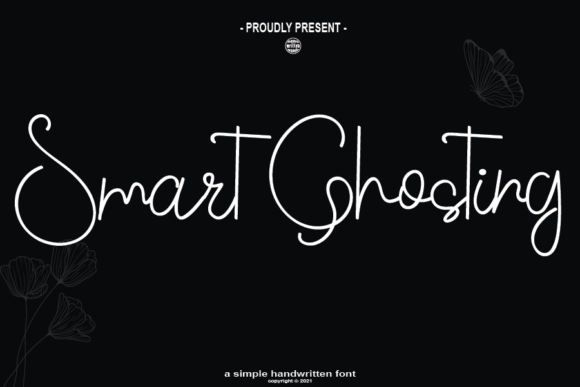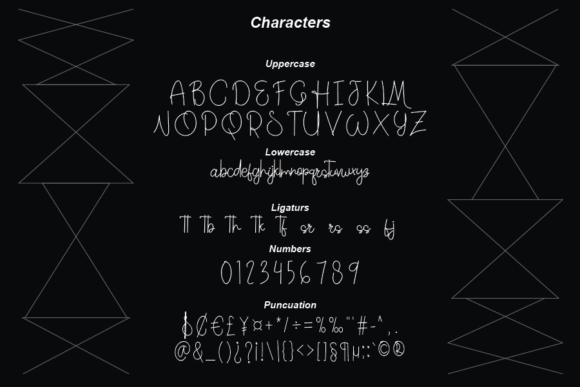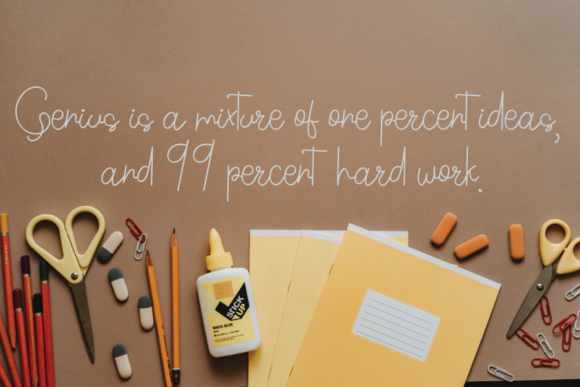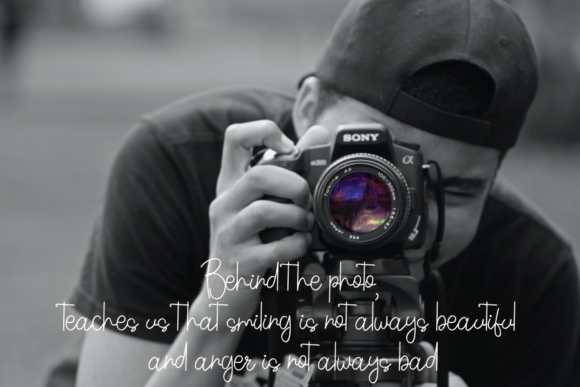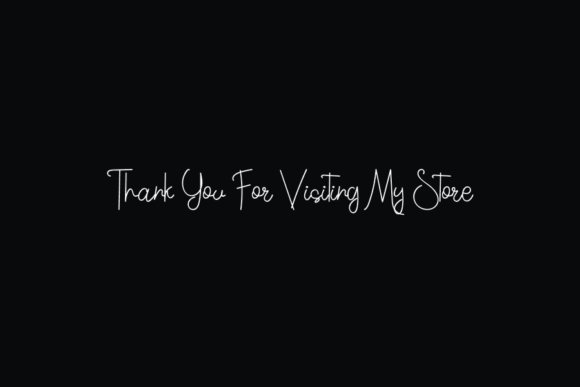
Smart Ghosting Font
About Smart Ghosting Font
Smart Ghosting is a thin and elegant handwritten font that adds a touch of sophistication and delicacy to your creative ideas. With its sleek and refined style, this font helps your designs stand out and make a lasting impression.
The thinness of Smart Ghosting creates a sense of elegance and subtlety in your typographic compositions. Its delicate letterforms and clean lines contribute to a refined and sophisticated aesthetic. Whether you’re working on branding, invitations, editorial designs, or any other project, Smart Ghosting font enhances the overall visual appeal with its thin and elegant demeanor.
Adding Smart Ghosting font to your creative ideas allows them to take on a new level of sophistication and allure. Its elegant and handwritten style brings a touch of class and refinement, making your designs visually captivating and memorable.
The sleekness of Smart Ghosting font ensures that it stands out while maintaining a sense of balance and harmony in your designs. Its thin and delicate appearance creates a subtle and understated beauty, allowing your creative ideas to shine.
Incorporating Smart Ghosting into your design process enables you to elevate your creations with its thin and elegant handwritten font. Its refined and sophisticated style adds a touch of class, making your designs truly stand out.
In summary, Smart Ghosting is a thin and elegant handwritten font that helps your creative ideas stand out. Its sleek and refined style brings a sense of sophistication and delicacy to your designs. Embrace the elegance of Smart Ghosting font and notice how it elevates your creative ideas, making them visually captivating and memorable.